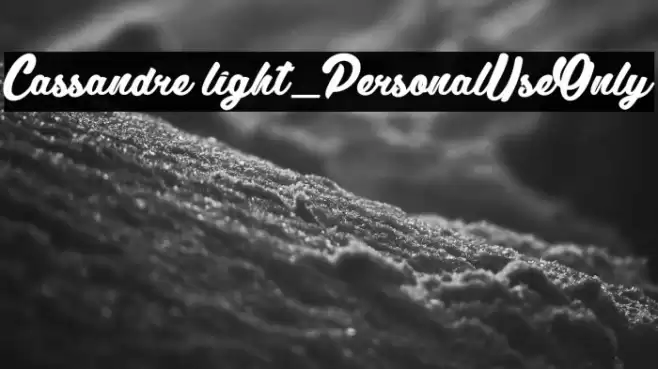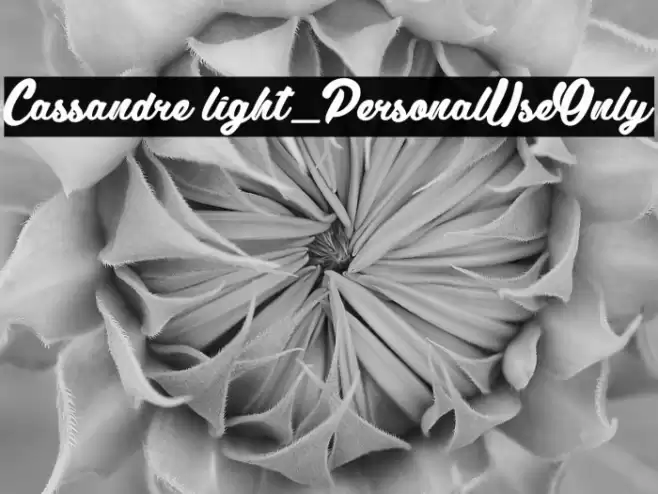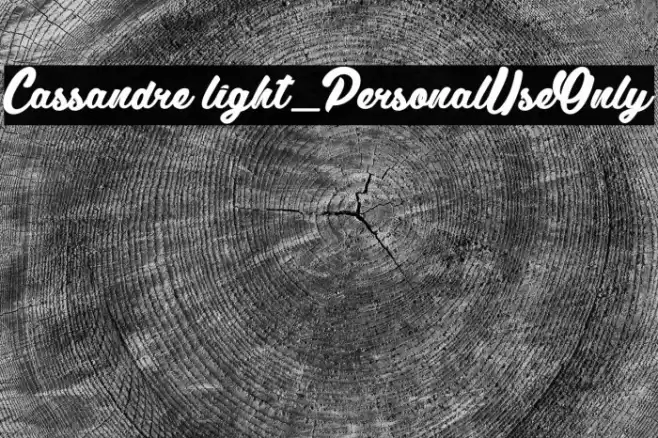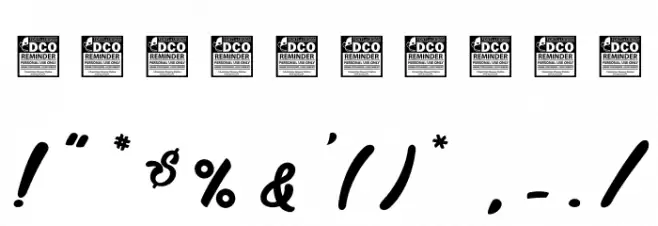
Cassandre light_PersonalUseOnly Font
Cassandre light_PersonalUseOnly Description
This font features a bold, cursive style with smooth, flowing lines that create a sense of movement and elegance. The uppercase letters are slightly larger and more pronounced, while the lowercase letters maintain a consistent flow. The characters are connected, enhancing the script-like appearance. The numbers and special characters are designed to match the overall aesthetic, ensuring a cohesive look. This font exudes a modern yet classic feel, making it versatile for various design applications.
A bold, cursive font with smooth, flowing lines and a modern yet classic feel from Regular fonts.
- Proposed Projects: Ideal for branding, invitations, greeting cards, and logo design where a touch of elegance and sophistication is desired.
- Overall Style: Modern, Classic
- Use Case: Logos, Invitations, Branding